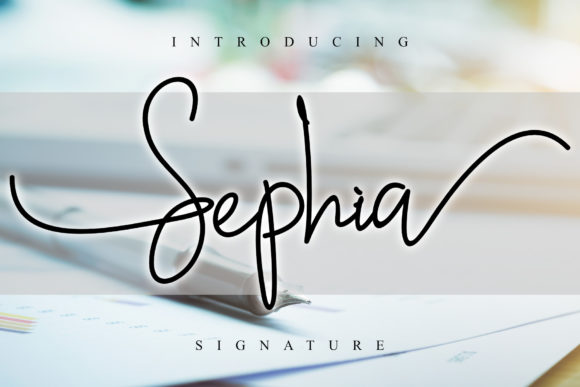
In a world of digital expression, Sephia Font emerges as a visual symphony, captivating hearts with its graceful strokes and elegant charm. Crafted with meticulous detail, this script font exudes a timeless allure that transcends the boundaries of ordinary typography. Its thin and refined lines evoke a sense of sophistication, inviting you to create designs that radiate class and elegance.
With Sephia Font, your words take on a captivating persona, leaving an unforgettable impression on your audience. Whether you're crafting logos, branding materials, invitations, stationery, or wedding designs, this font is your perfect companion. Its versatility extends to social media posts, where your messages will shine with an eye-catching allure that captivates and engages your followers.
Embrace the power of Sephia Font and elevate your designs to new heights. Its PUA encoding ensures effortless access to a treasure trove of glyphs and swashes, empowering you to add intricate details and flourishes that bring your creative vision to life. As you explore the endless possibilities of this extraordinary font, you'll discover a world of beauty, grace, and sophistication that will leave you breathless.